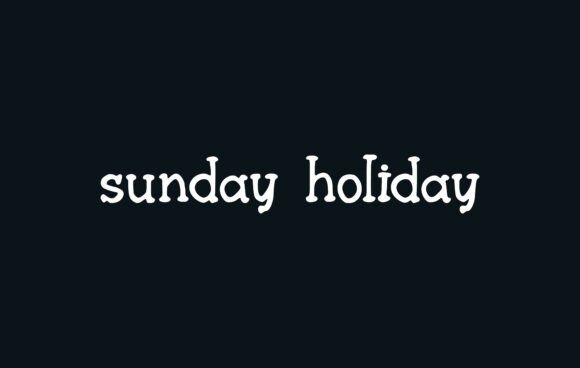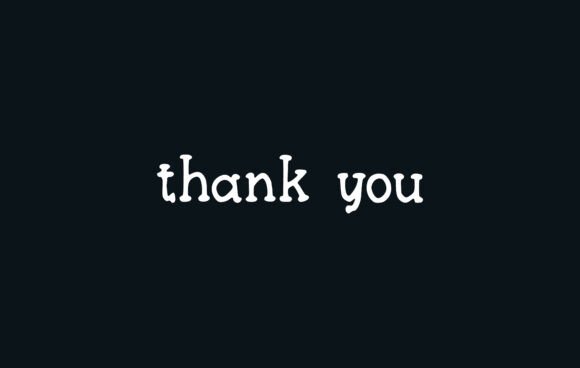
Aniyah Font: Elevate Your Designs with a Romantic Handwritten Touch
In the world of typography, a well-crafted font can make all the difference in bringing your creative ideas to life. If you’re a designer, crafter, or simply someone who appreciates beautiful typography, you owe it to yourself to check out Aniyah Font. This stunning handwritten font boasts a romantic touch that’s sure to capture your heart and inspire your next project.
The Charm of Aniyah Font
Aniyah font is an authentic handwritten font that’s been expertly designed to exude a sense of elegance and sophistication. Its unique blend of cursive and print elements creates a distinctive look that’s both legible and visually appealing. Whether you’re looking to add a touch of whimsy to your designs or create a more formal, refined look, Aniyah font is the perfect choice.
One of the things that sets Aniyah font apart is its incredible versatility. Its legibility and aesthetic appeal make it suitable for a wide range of design applications, from magazine headlines and social media graphics to branding, wedding invitations, and greeting cards. Whether you’re a professional designer or a DIY crafter, Aniyah font has the potential to elevate your work and make it stand out from the crowd.
Aniyah font is a true creative’s dream come true. Its romantic, handwritten feel makes it perfect for projects that require a personal touch, such as:
- Magazine headlines and articles
Why Choose Aniyah Font?
So, what makes Aniyah font so special? Here are just a few reasons why designers and crafters are falling in love with this beautiful font:
- Unique and authentic design: Aniyah font is a one-of-a-kind creation that’s been carefully crafted to stand out from the crowd.
- Legible and easy to read: Despite its ornate feel, Aniyah font is surprisingly legible, making it perfect for both title and body text.
- Romantic and whimsical: Aniyah font’s handwritten feel adds a touch of romance and whimsy to any design.
- Versatile and adaptable: Whether you’re designing for print or digital, Aniyah font is the perfect choice.
Tips for Using Aniyah Font
To get the most out of Aniyah font, here are a few tips to keep in mind:
- Experiment with different sizes and colors: Aniyah font looks great in a variety of sizes and colors, so don’t be afraid to get creative!
- Pair with complementary fonts: Try pairing Aniyah font with other fonts that complement its unique style.
- Use for headlines and titles: Aniyah font’s ornate feel makes it perfect for headlines and titles.
- Add a personal touch: Aniyah font’s handwritten feel makes it perfect for adding a personal touch to your designs.
In conclusion, Aniyah font is a true gem in the world of typography. Its unique blend of romance, whimsy, and legibility makes it the perfect choice for designers and crafters looking to elevate their creative projects. Whether you’re working on a wedding invitation, social media graphic, or branding design, Aniyah font has the potential to take your work to the next level. So why wait? Give Aniyah font a try today and discover the magic of beautiful typography for yourself!